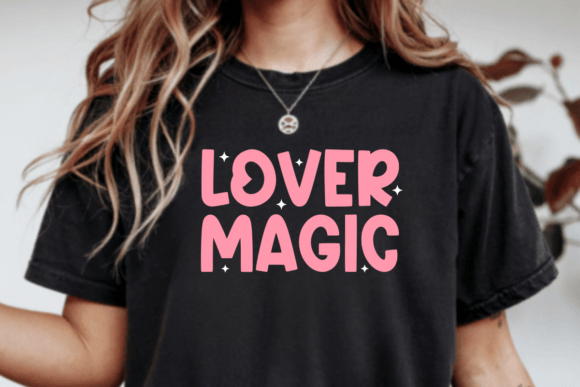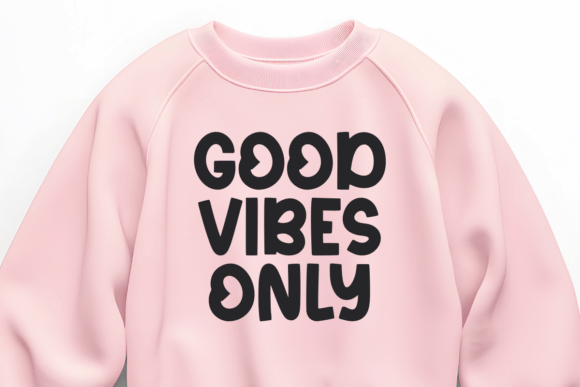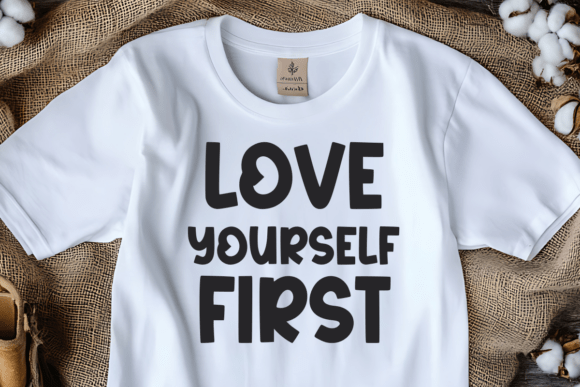
Introduction to Lover Dream Font
Have you ever stumbled upon the perfect design inspiration in the middle of a busy day? Maybe it was a colorful illustration, a quirky quote, or a charming font that immediately sparked your creativity. For designers, moments like these are what make our jobs so exciting. And for me, that moment came when I discovered the Lover Dream Font – a playful display font that radiates warmth and joy.
What I love about the Lover Dream Font is its unique ability to evoke a sense of nostalgia while still feeling modern and fresh. Its soft, rounded edges and bubbly aesthetic make it perfect for designers looking to add a touch of whimsy to their creative projects. Whether you’re working on a free download for a client or creating a high-quality design resource for your own branding, this font is sure to bring a smile to your face.
Key Features of Lover Dream Font
- Unique, dreamy aesthetic with a romantic feel, perfect for projects requiring a touch of whimsy.
Honest Review: Lover Dream Font
I recently stumbled upon the Lover Dream Font, and I must say it’s a delightful addition to any design project. This free download has been a game-changer for my creative pursuits. The high quality and sleek design of the font make it perfect for a wide range of applications.
What works well about the Lover Dream Font is its versatility. It’s ideal for both digital and print projects, and its transparent background makes it easy to layer and combine with other design elements. I’ve found it particularly useful for creating eye-catching headlines and titles.
However, I do have a few minor quibbles with the Lover Dream Font. The character set is somewhat limited, which can make it challenging to use for complex projects. Additionally, the font may not be suitable for projects requiring a more formal or conservative tone.
Overall, I’m impressed with the Lover Dream Font and would definitely recommend it to designers and creatives looking for a unique and stylish design resource. While it may have some limitations, its high quality and versatility make it a valuable addition to any design library.
The Lover Dream Font is a high-quality, free download that can elevate your creative project to the next level. With its elegant and sophisticated design, it’s perfect for a variety of uses, from wedding invitations to fashion branding.
The Lover Dream Font is perfect for:
- Fashion branding and packaging
- Wedding website design
- Special occasion cards and gifts